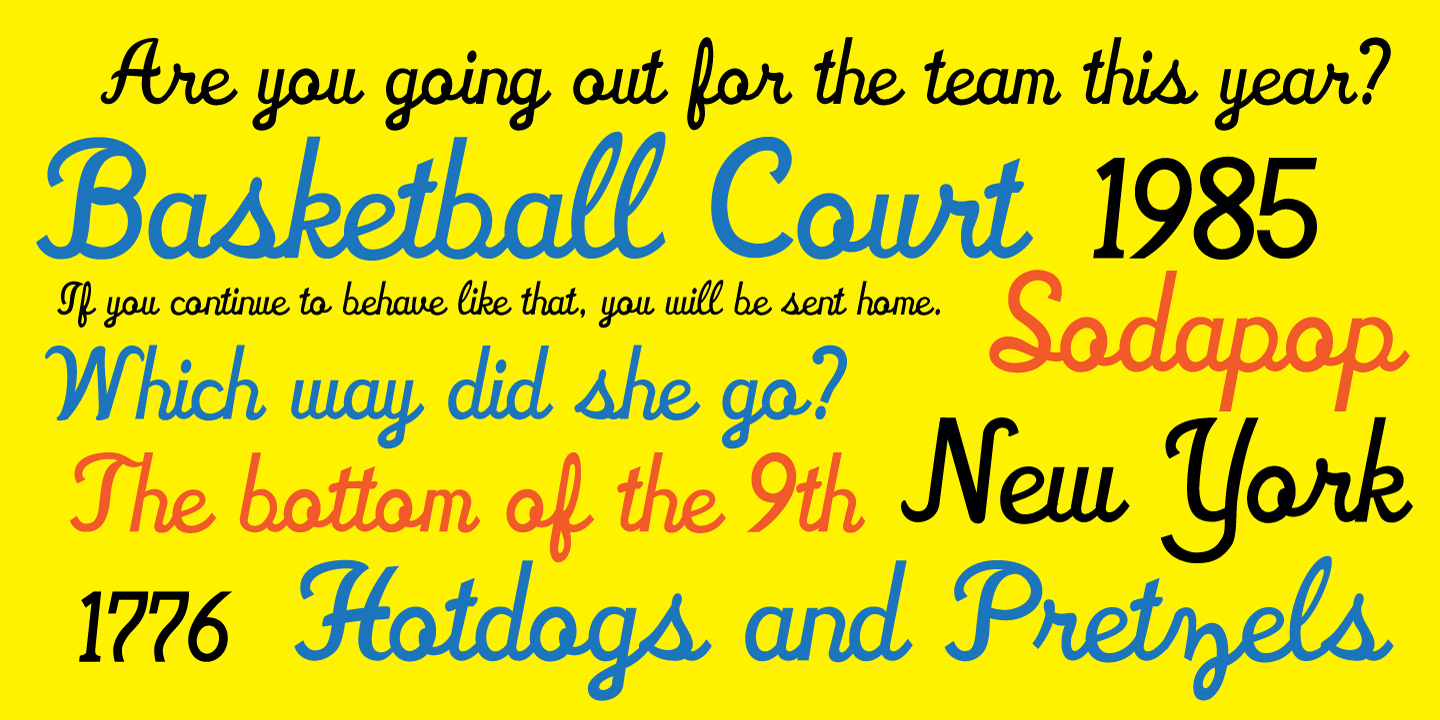
Tiny small medium large varsity script jf font download jason walcott decorative design date: The varsity script font has a script typography and is great for elegant invitation art. Varsity script jf contains 1 styles. Thousands of designers (famous or not) use the image font detection system to find a font or similar free fonts from an image. Varsity font is an over traditional font style and released by broderbund software company and available for free download as well as personal. Varsity font | dafont.com english français español deutsch italiano português. 'find my font' is an easy to use application for identifying fonts in digital images. Make the art more fun because. Varsity script jf font family was designed by jason anthony walcott and published by jukebox collection. For windows in truetype, pso.
Varsity Font Distressed Varsity Letter Font Varsity Team Font Varsity
VARSITY Sport Script Font By Blush Font Co. TheHungryJPEG Varsity Script Jf Font Free Download Tiny small medium large varsity script jf font download jason walcott decorative design date: For windows in truetype, pso. Thousands of designers (famous or not) use the image font detection system to find a font or similar free fonts from an image. Varsity script jf contains 1 styles. Make the art more fun because. 'find my font' is an easy. Varsity Script Jf Font Free Download.
Varsity Regular free Font What Font Is Varsity Script Jf Font Free Download The varsity script font has a script typography and is great for elegant invitation art. Varsity script jf font family was designed by jason anthony walcott and published by jukebox collection. For windows in truetype, pso. Tiny small medium large varsity script jf font download jason walcott decorative design date: 'find my font' is an easy to use application for. Varsity Script Jf Font Free Download.
Varsity Font Free Download Varsity Script Jf Font Free Download The varsity script font has a script typography and is great for elegant invitation art. Tiny small medium large varsity script jf font download jason walcott decorative design date: For windows in truetype, pso. Varsity script jf contains 1 styles. Varsity font | dafont.com english français español deutsch italiano português. Varsity font is an over traditional font style and released. Varsity Script Jf Font Free Download.
Varsity Font Svg Ttf College Font Svg Varsity Font Cricut Etsy Australia Varsity Script Jf Font Free Download 'find my font' is an easy to use application for identifying fonts in digital images. Varsity font | dafont.com english français español deutsch italiano português. Varsity script jf contains 1 styles. Thousands of designers (famous or not) use the image font detection system to find a font or similar free fonts from an image. Make the art more fun because.. Varsity Script Jf Font Free Download.
Varsity Script JF Font font & Desktop MyFonts Varsity Script Jf Font Free Download Make the art more fun because. Varsity font is an over traditional font style and released by broderbund software company and available for free download as well as personal. For windows in truetype, pso. Varsity script jf font family was designed by jason anthony walcott and published by jukebox collection. Tiny small medium large varsity script jf font download jason. Varsity Script Jf Font Free Download.
Varsity Font Free Download Dafont Free Varsity Script Jf Font Free Download Varsity font is an over traditional font style and released by broderbund software company and available for free download as well as personal. The varsity script font has a script typography and is great for elegant invitation art. For windows in truetype, pso. Varsity font | dafont.com english français español deutsch italiano português. Varsity script jf font family was designed. Varsity Script Jf Font Free Download.
65+ Best Varsity Fonts (FREE / Premium) 2024 Hyperpix Varsity Script Jf Font Free Download Varsity font is an over traditional font style and released by broderbund software company and available for free download as well as personal. 'find my font' is an easy to use application for identifying fonts in digital images. Tiny small medium large varsity script jf font download jason walcott decorative design date: Thousands of designers (famous or not) use the. Varsity Script Jf Font Free Download.